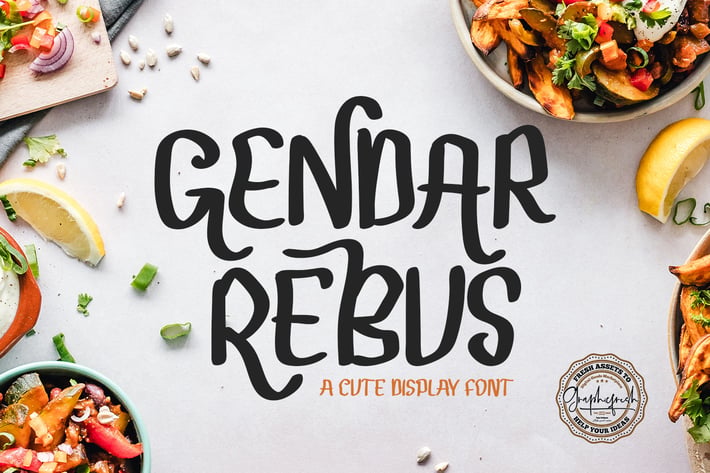
Gendar Rebus - A Cute Display Font
Gendar Rebus - A funny, cute character! it's perfect for logos, name card, magazine layouts, invitations, headers, or even large-scale artwork.
- More Alternate